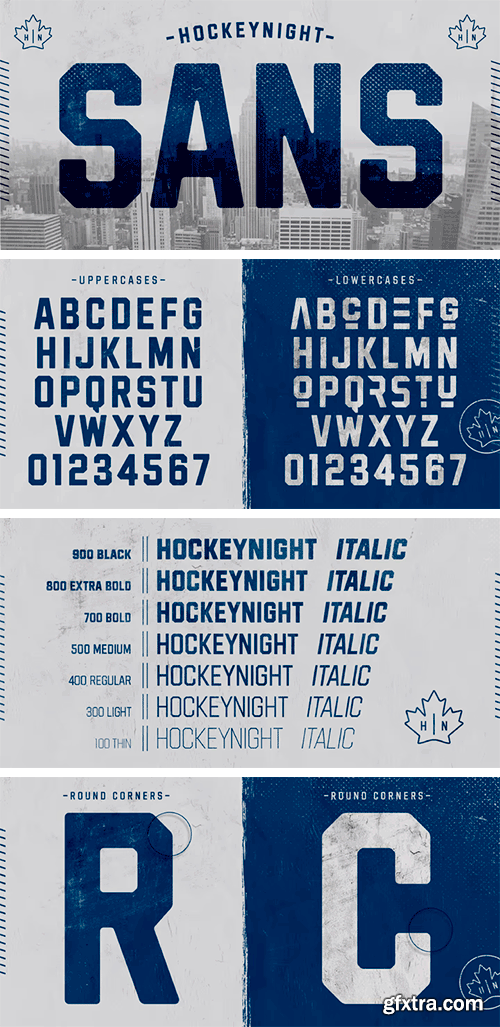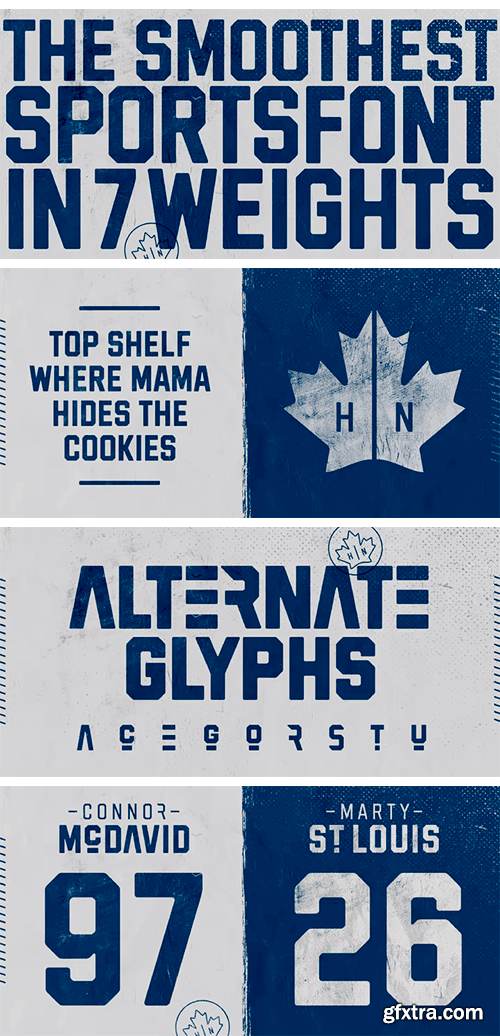
Hockeynight Sans with its round corners is the smoothest sports-font you will find. Its the helvetica under the college fonts. Spice it up and mix some of the alternative glyphs in! Hockeynight comes in 7 Weights and each one available as an Italic. Use it big and bold on your sports-poster, space it up to get that dirty look or use some alternate glyphs for your logodesign.